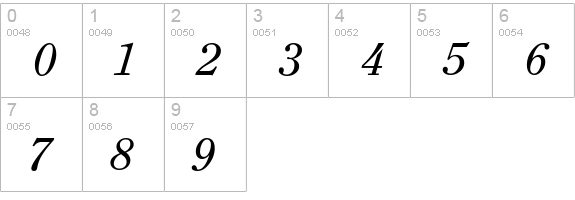
Clearface Italic Font Details
Clearface Italic is a distinctive, italic variant in the Clearface typeface family \xE2\x80\x94 well suited to design and typography projects.
Clearface Italic font is a sleek and elegant typeface that exudes sophistication and style. Its slanted design adds a touch of flair to any project, making it perfect for both professional and creative use. The italicized characters have a contemporary feel, while still maintaining a sense of classic beauty. This font is ideal for use in branding, advertising, editorial design, and more. Its versatility allows it to be used in a wide range of applications, from sleek business cards to eye-catching website headers. Whether you're looking to add a touch of elegance to your next project or simply want to stand out from the crowd, Clearface Italic font is sure to make a statement. Best of all, Clearface Italic font is available for free download at FontsMarket.com. Now you can elevate your designs with this stunning typeface without breaking the bank. Don't miss out on the opportunity to add Clearface Italic font to your font library today!